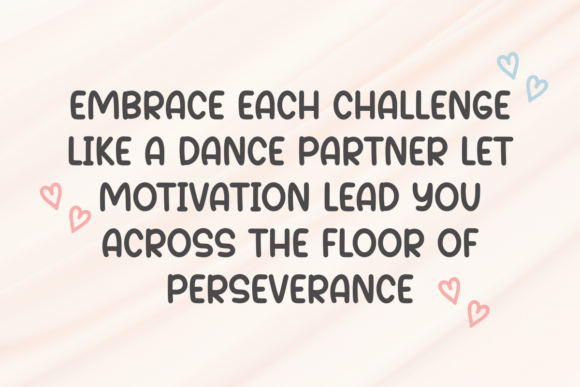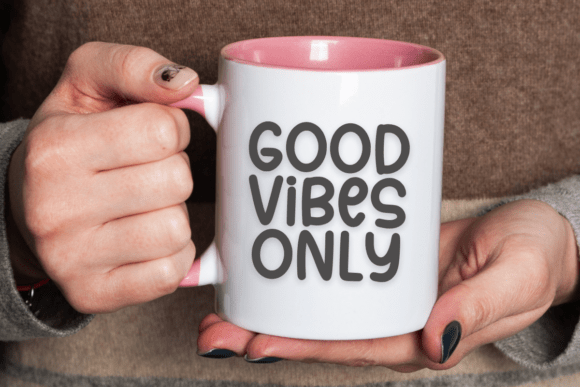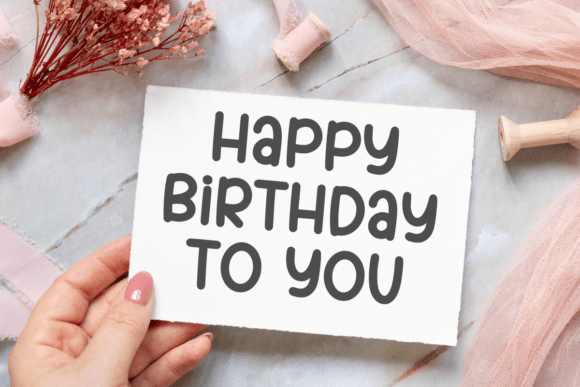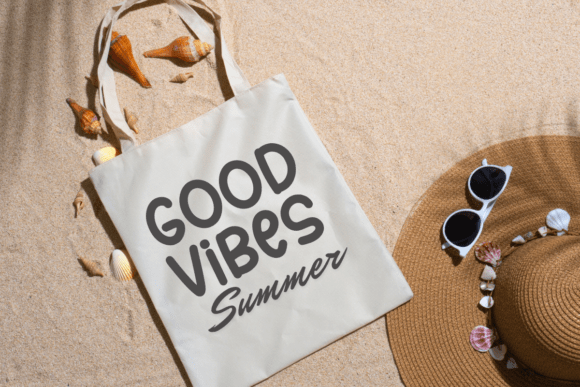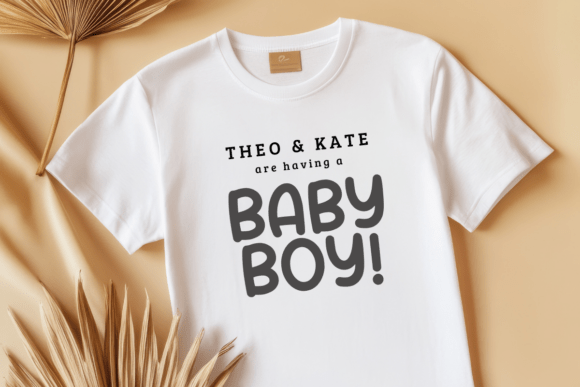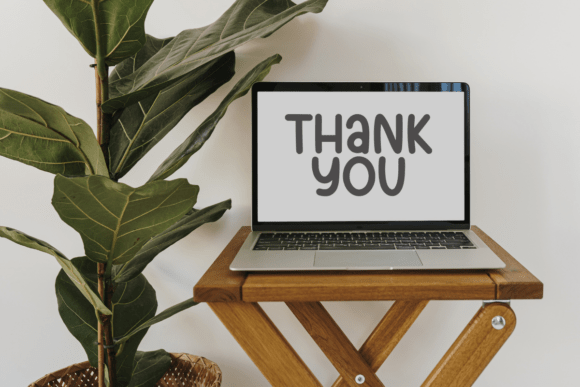
Fantasi Rainbow Font: Adding a Touch of Whimsy to Your Designs
In the world of typography, fonts play a crucial role in conveying the tone and personality of a design. If you’re looking for a font that exudes charm, creativity, and a dash of playfulness, look no further than Fantasi Rainbow. This delightful sans-serif font is perfect for designers and crafters who want to add a cheerful and youthful vibe to their projects.
The Characteristics of Fantasi Rainbow
Fantasi Rainbow is a beautifully crafted font that boasts rounded letterforms, smooth curves, and balanced proportions. These characteristics come together to create a friendly, approachable style that stands out in both digital and print projects. The clean strokes and subtle uniqueness of each character give it a versatile appeal, making it an excellent choice for a wide range of design applications.
Fantasi Rainbow’s modern yet whimsical personality makes it an ideal font for various creative projects. Here are some of the ways you can use this fantastic font:
- Branding: Use Fantasi Rainbow to create a memorable brand identity that resonates with your target audience. Its playful and cheerful vibe makes it perfect for brands that want to appear friendly and approachable.
- Packaging: Add a touch of whimsy to your product packaging with Fantasi Rainbow. Its clean and modern design ensures that your products stand out on store shelves.
- Children’s Books: Fantasi Rainbow is an excellent choice for children’s books, as its playful and youthful vibe will appeal to young readers.
- Social Media Graphics: Use Fantasi Rainbow to create engaging social media graphics that capture attention and convey your message in a fun and playful way.
- Invitations: Add a touch of elegance and whimsy to your invitations with Fantasi Rainbow. Its clean design and smooth curves make it perfect for formal and informal events.
- DIY Crafts: Fantasi Rainbow is also ideal for DIY craft projects, such as handmade cards, scrapbooking, and other paper crafts.
Why Choose Fantasi Rainbow?
So, why should you choose Fantasi Rainbow for your design projects? Here are just a few reasons:
- Unique and Versatile: Fantasi Rainbow’s subtle uniqueness and versatility make it an excellent choice for a wide range of design applications.
- Easy to Read: The font’s clean strokes and balanced proportions ensure that it’s easy to read, even at small sizes.
- Modern yet Whimsical: Fantasi Rainbow’s modern design and whimsical personality make it perfect for designers who want to create unique and eye-catching designs.
- Attention-Grabbing: The font’s playful and cheerful vibe ensures that it captures attention effortlessly, making it perfect for designs that need to stand out.
Tips for Using Fantasi Rainbow
Here are some tips for using Fantasi Rainbow in your design projects:
- Pair it with Other Fonts: Fantasi Rainbow pairs well with other fonts, so don’t be afraid to experiment with different combinations.
- Use it for Headings: The font’s playful and attention-grabbing vibe makes it perfect for headings and titles.
- Experiment with Colors: Fantasi Rainbow looks great in a variety of colors, so don’t be afraid to experiment with different color schemes.
Fantasi Rainbow is a delightful font that adds a touch of whimsy and playfulness to any design project. Its unique and versatile design makes it perfect for a wide range of applications, from branding and packaging to children’s books and social media graphics. With its modern yet whimsical personality, Fantasi Rainbow captures attention effortlessly, adding a joyful and polished touch to any creative project. So, why not give Fantasi Rainbow a try and see how it can elevate your designs?